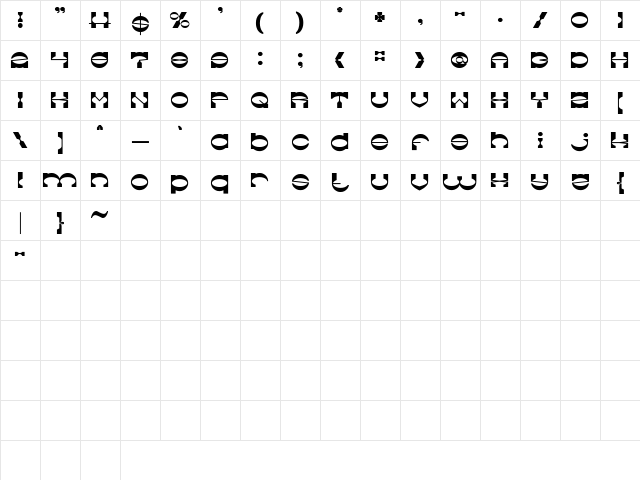
The Machine Gun Regular
Design Context for The Machine Gun Typeface
The Machine Gun is a composed and adaptable typeface that performs quietly and consistently across a wide range of design contexts.